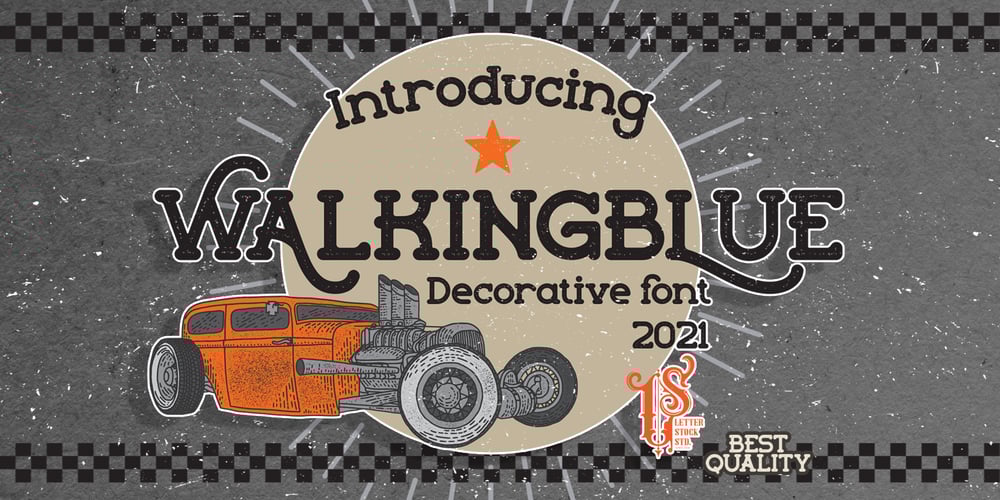
Walkingblue Font Family was designed by Studio LetterStock and published by LetterStock. Walkingblue contains 1 styles and family package options. WalkingblueThis pair was inspired by old motorcycle poster design that i saw on some gellery, It was crafted by hand specially to add natural handmade feeling in its brand identity than i make it clean with pentool.We add some rough to make it retro feel, this font is bold so it can look strong if you use it for branding or even title for your retro poster design.Opentype featuresWalkingblue font has 204 character set included Walkingblue Font is very good looking in retro rough logotype, labels, t-shirt prints, product packaging, invitations, advertising and others.This fonts works with folowing languages:Afrikaans, Albanian, Asu, Basque, Bemba, Bena, Chiga, Cornish, Danish, English, Estonian, Filipino, Finnish, French, Friulian, Galician, German, Gusii, Indonesian, Irish, Italian, Kabuverdianu, Kalenjin, Kinyarwanda, Low German, Luo, Luxembourgish, Luyia, Machame, Makhuwa-Meetto, Makonde, Malagasy, Malay, Manx, Morisyen, North Ndebele, Norwegian Bokmål, Norwegian Nynorsk, Nyankole, Oromo, Portuguese, Romansh, Rombo, Rundi, Rwa, Samburu, Sango, Sangu, Scottish Gaelic, Sena, Shambala, Shona, Soga, Somali, Spanish, Swahili, Swedish, Swiss German, Taita, Teso, Vunjo, ZuluThank you for using this font.LS